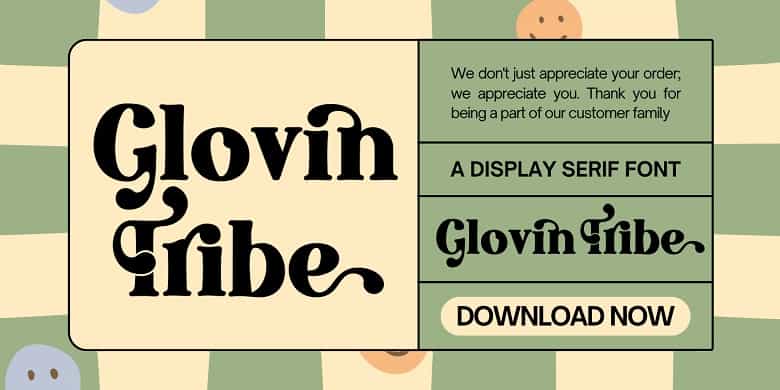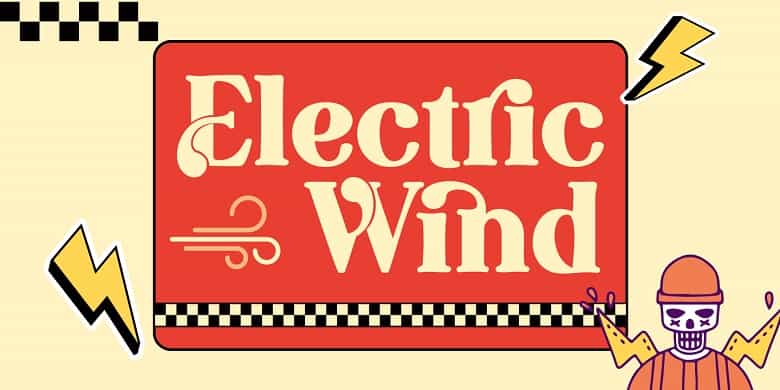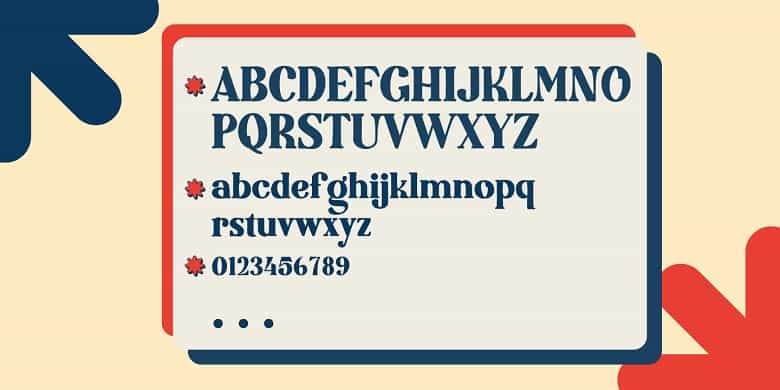
Discover Glovin Tribe Font, part of the Serif Display collection—a versatile and unique font perfect for adding a personal touch to your projects. Download it for free and enjoy crafting designs with style, from invitations to social media posts. This font is available exclusively for personal use, giving you the freedom to create without limits. Unlock your creativity with Glovin Tribe Font today!
The Glovin Tribe is a serif font with natural ligatures and alternates, giving the typeface a clean and elegant yet modern look. This font features both the classical and the modern looks, thus giving it a classy and cute appearance.